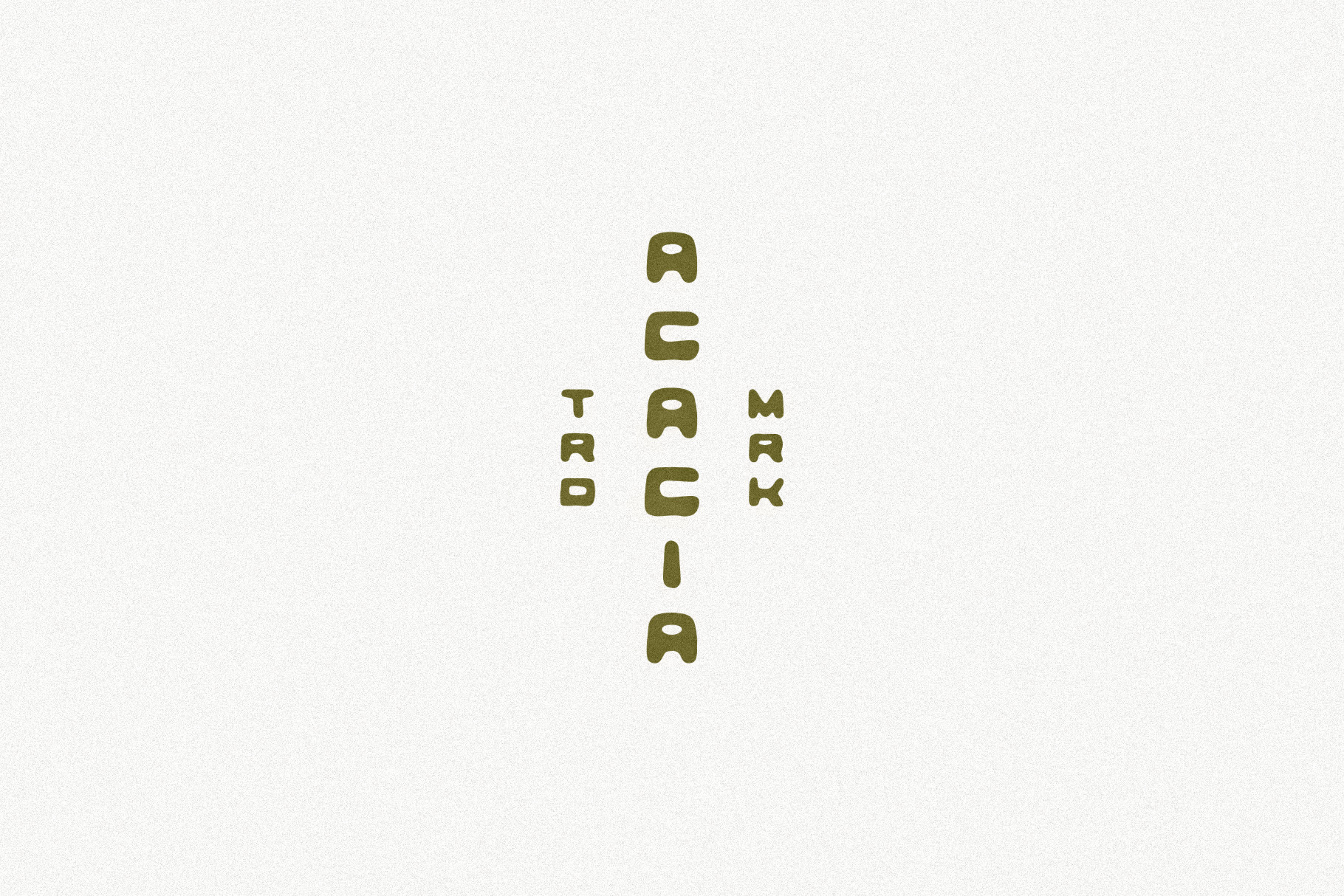
Acacia Typeface
The final studio typeface designed in California. Named for the tree that sat in my yard and provided shade on many summer days. Acacia is a fully functional allcaps font including numbers, punctuation, and characters from a variety of languages.